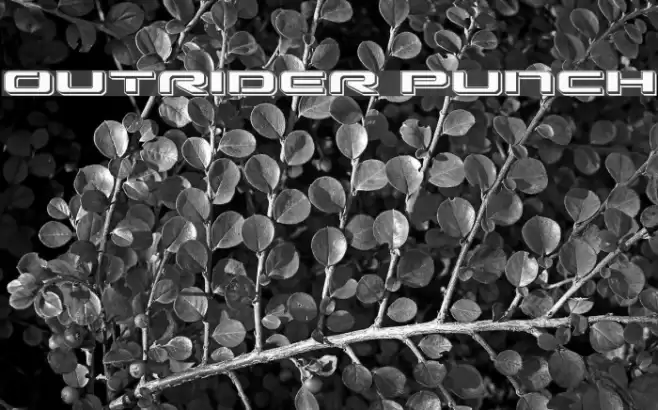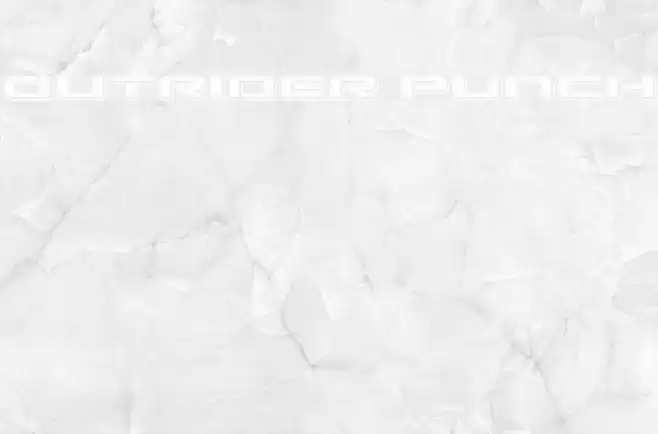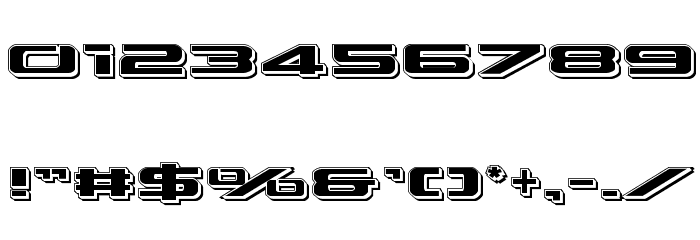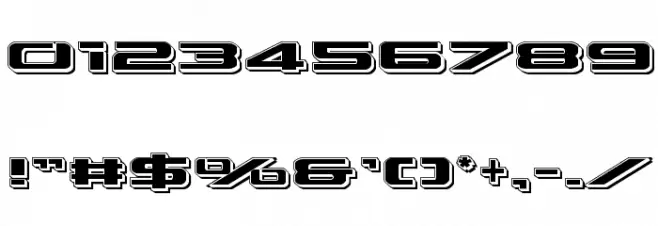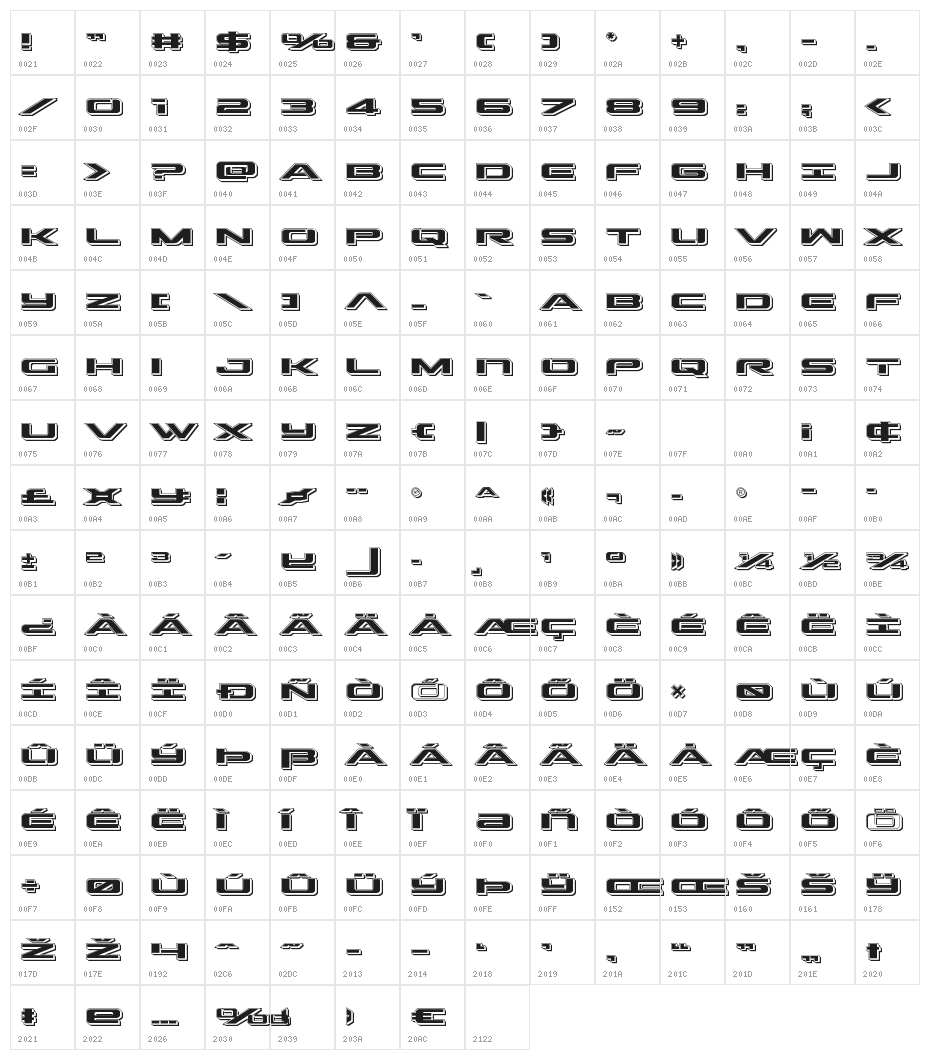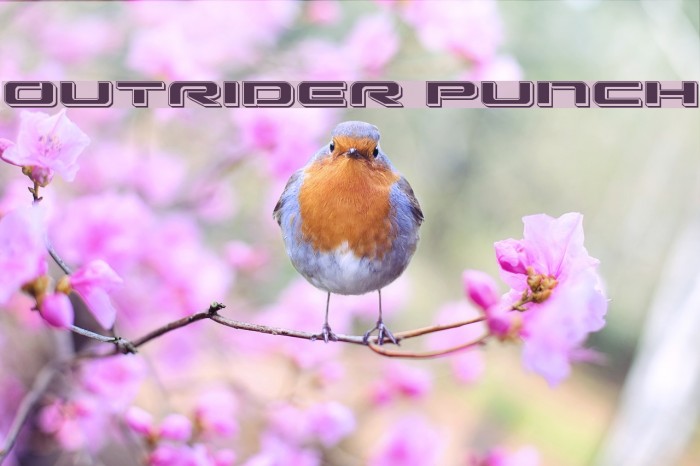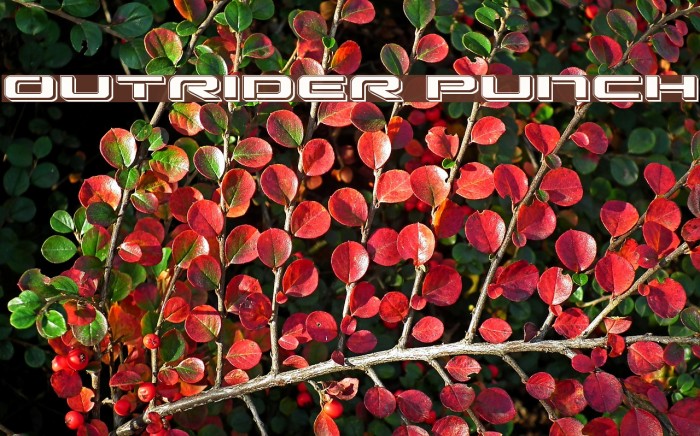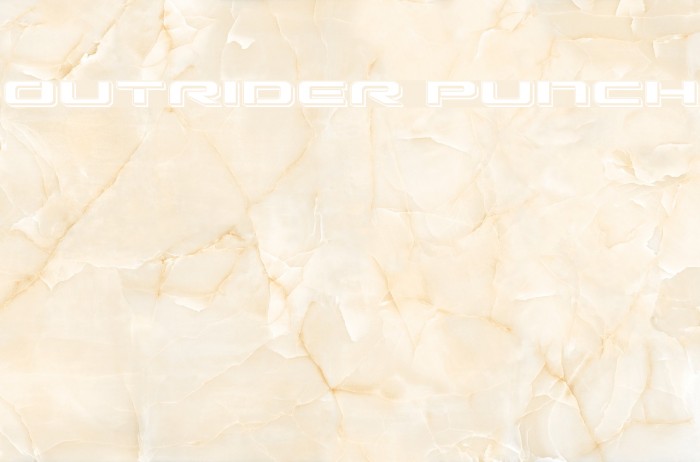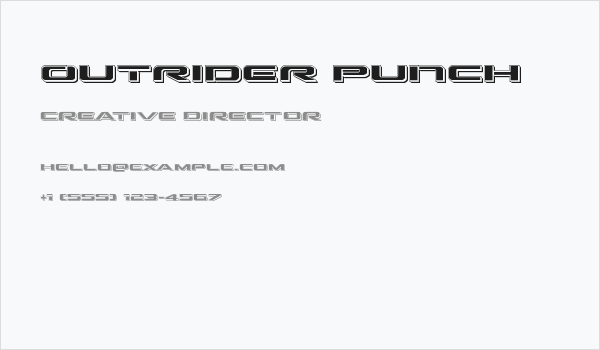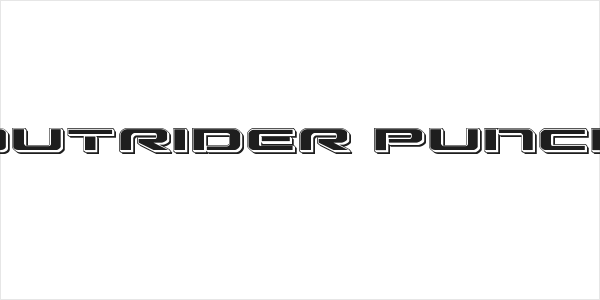
Outrider Punch Font
Outrider Punch Description
This font features a bold, futuristic design with a strong emphasis on geometric shapes and sharp angles. The characters are outlined, creating a three-dimensional effect that adds depth and visual interest. The uppercase and lowercase letters maintain a consistent style, with the lowercase mirroring the uppercase in form. The numerals and special characters are designed to match the overall aesthetic, ensuring a cohesive look across all text. The font's unique style makes it ideal for projects that require a modern and edgy appearance.
A bold, futuristic font with geometric shapes and sharp angles from Uncategorized fonts.
- Proposed Projects: Ideal for sci-fi themed designs, video game titles, posters, and branding that requires a modern, edgy look.